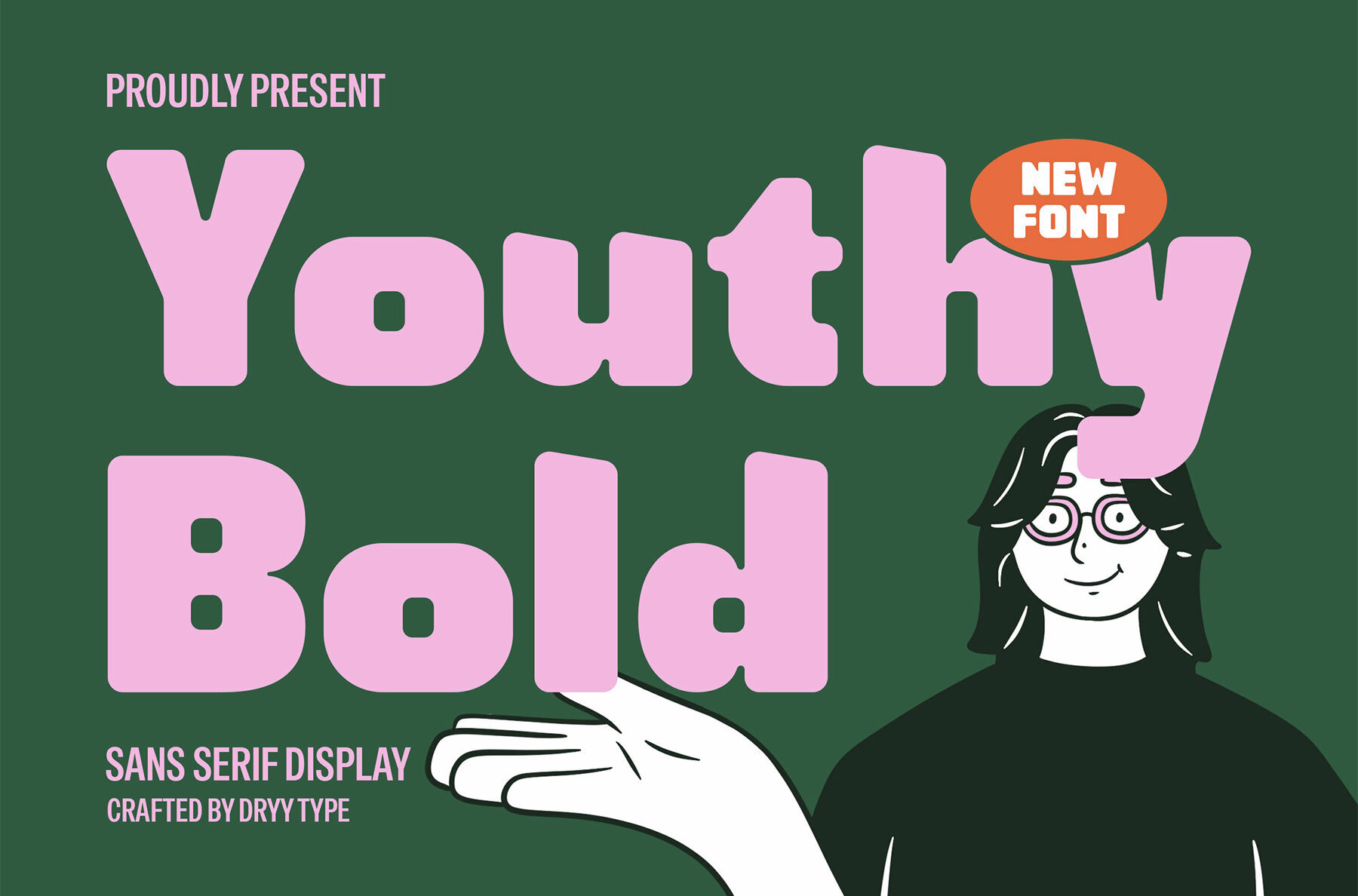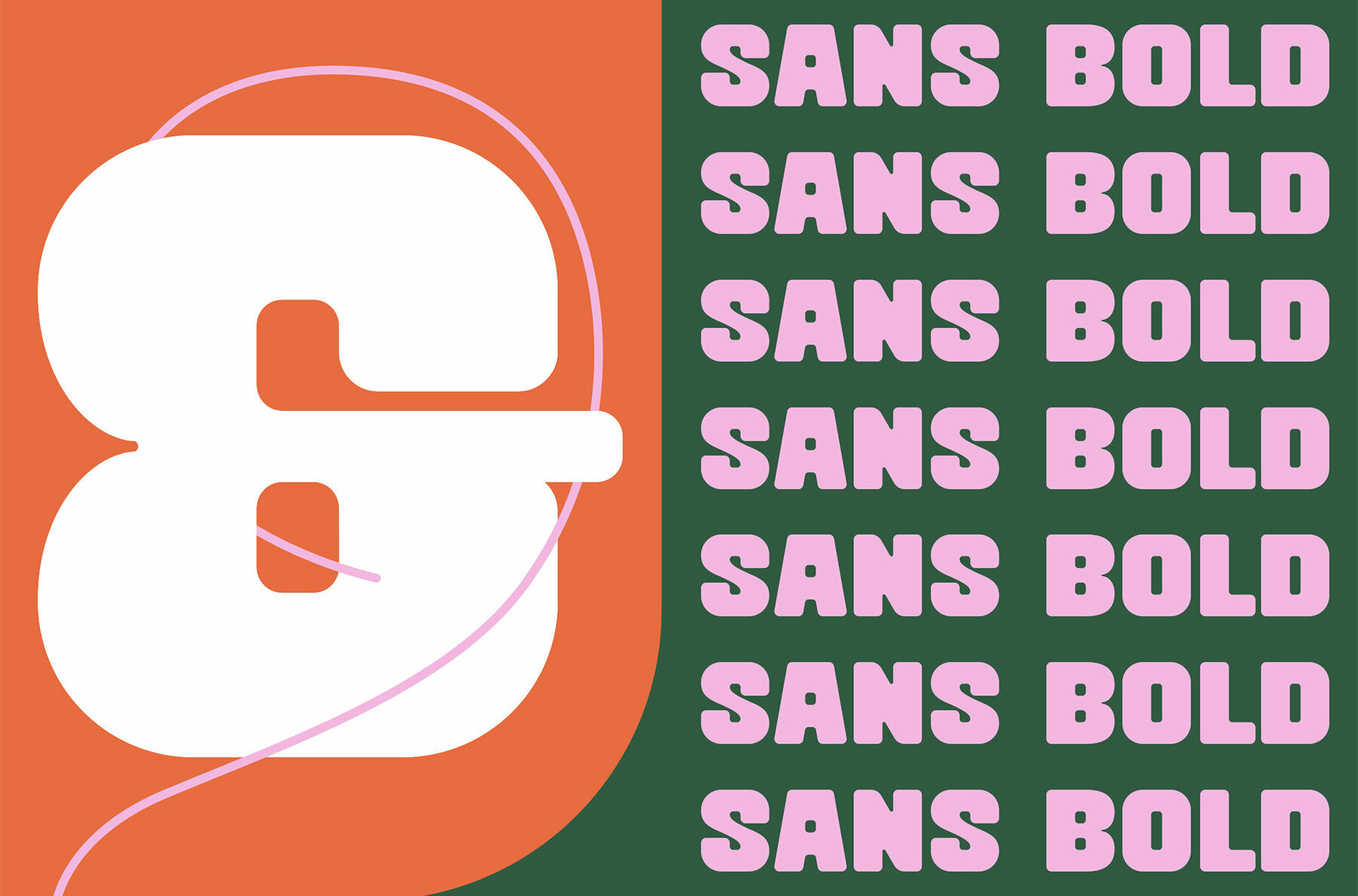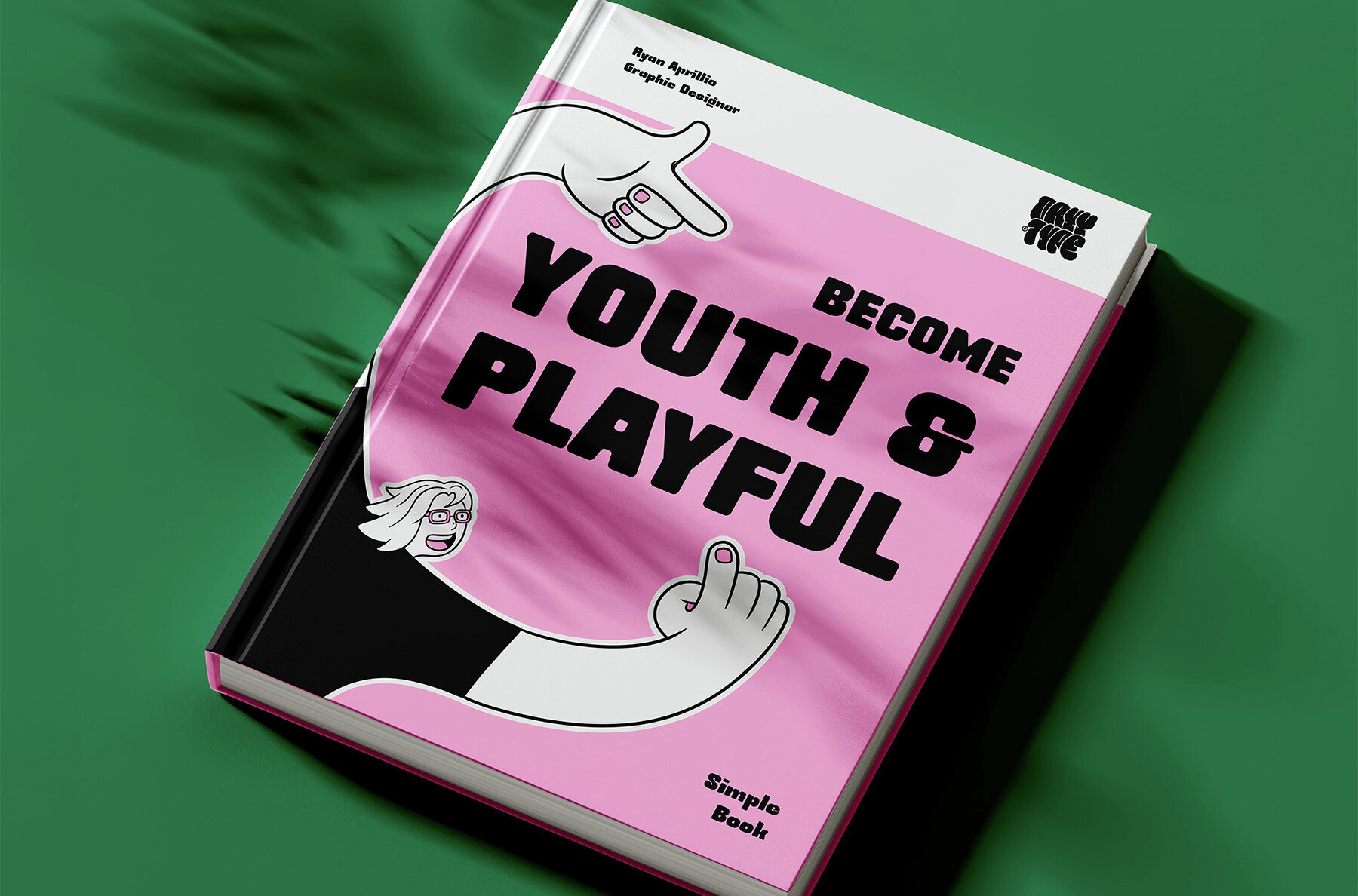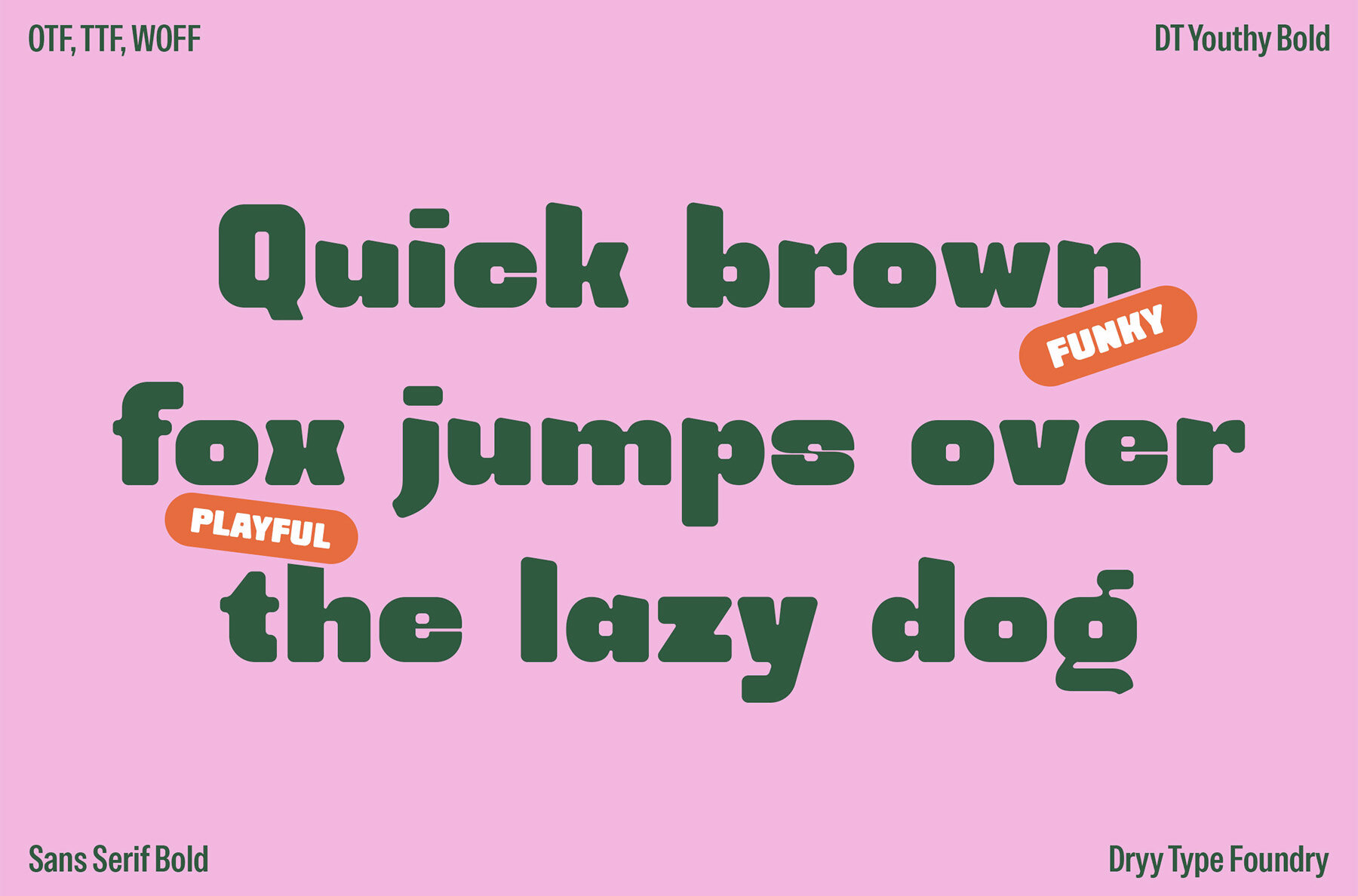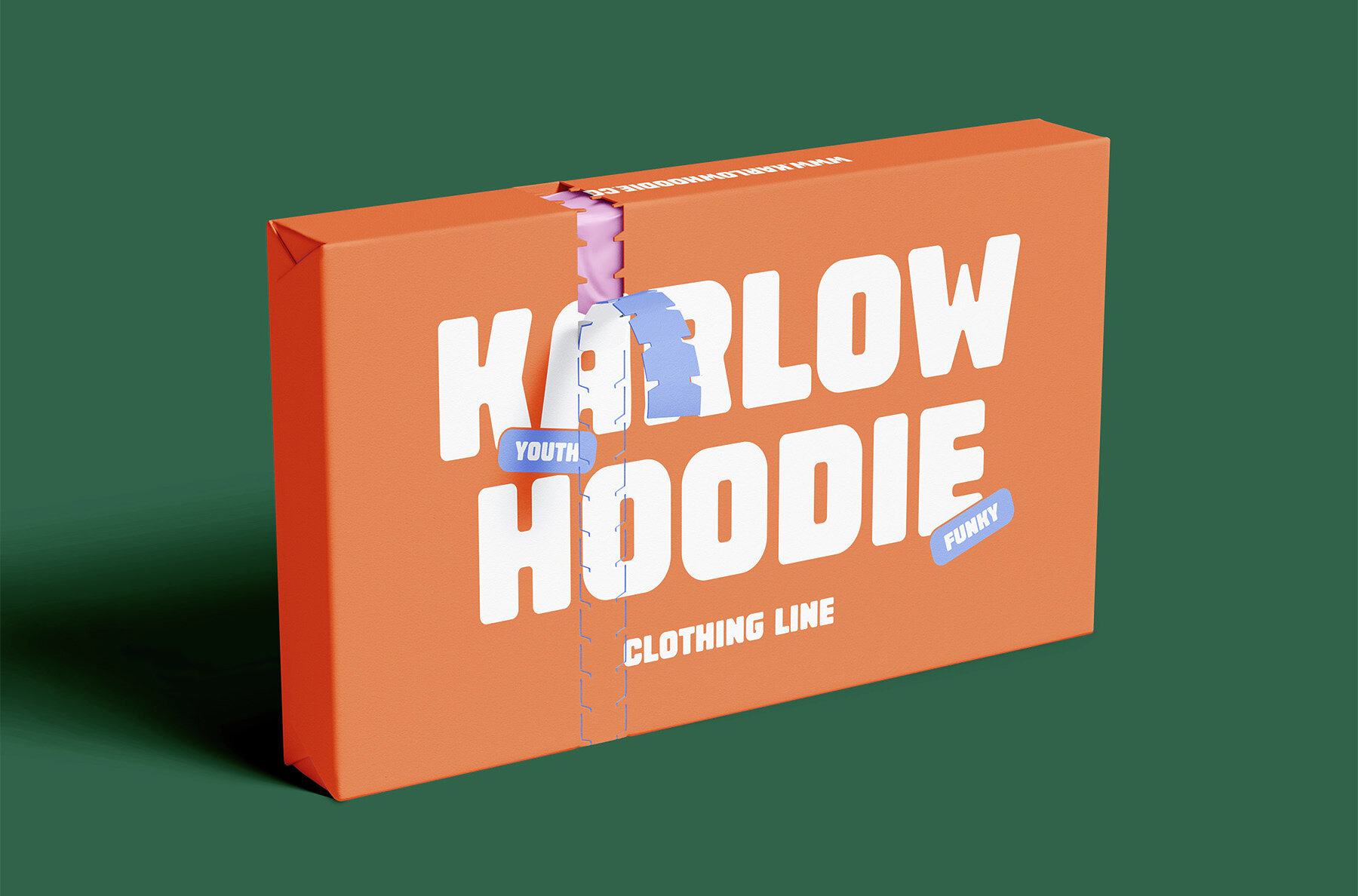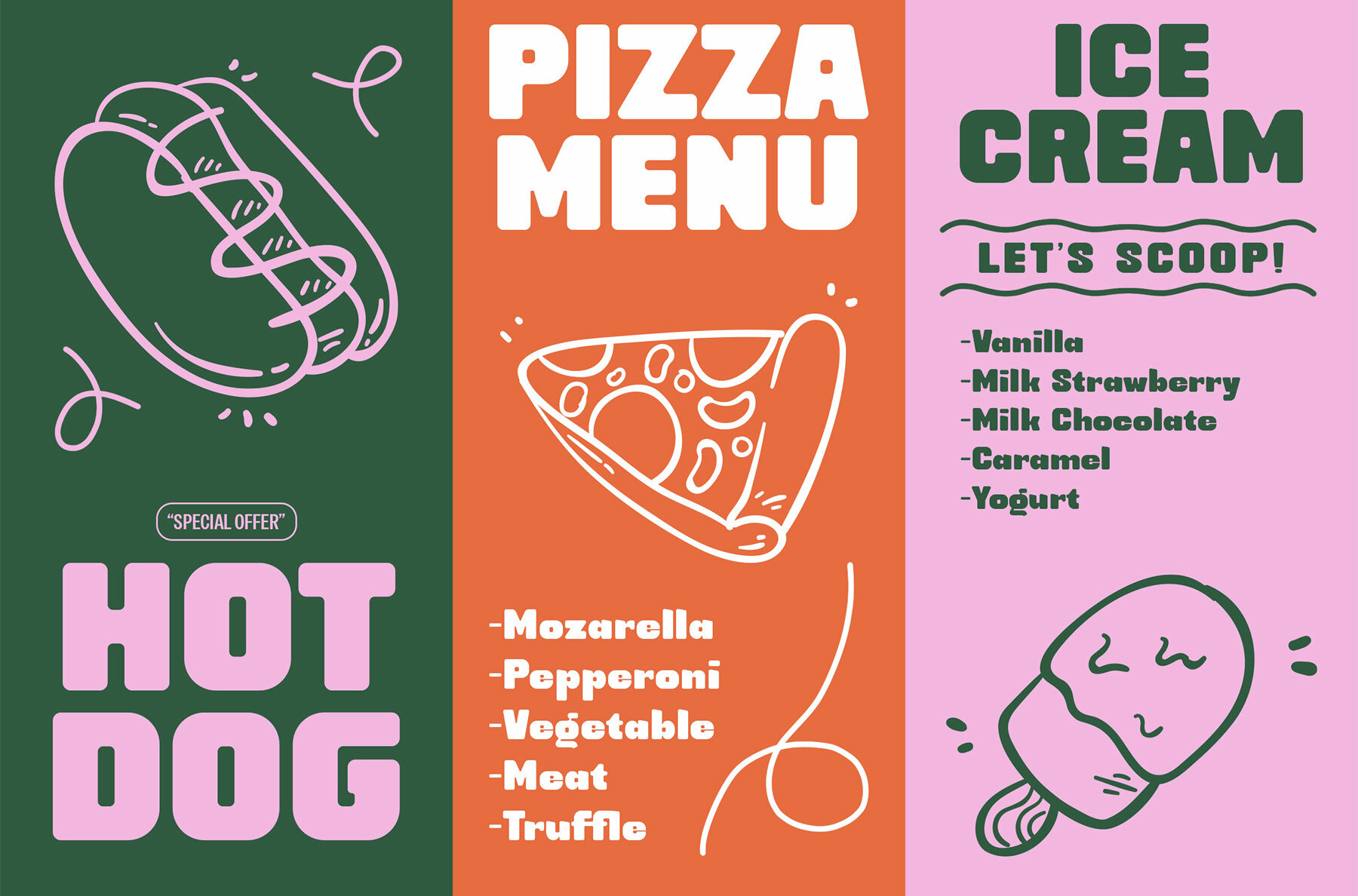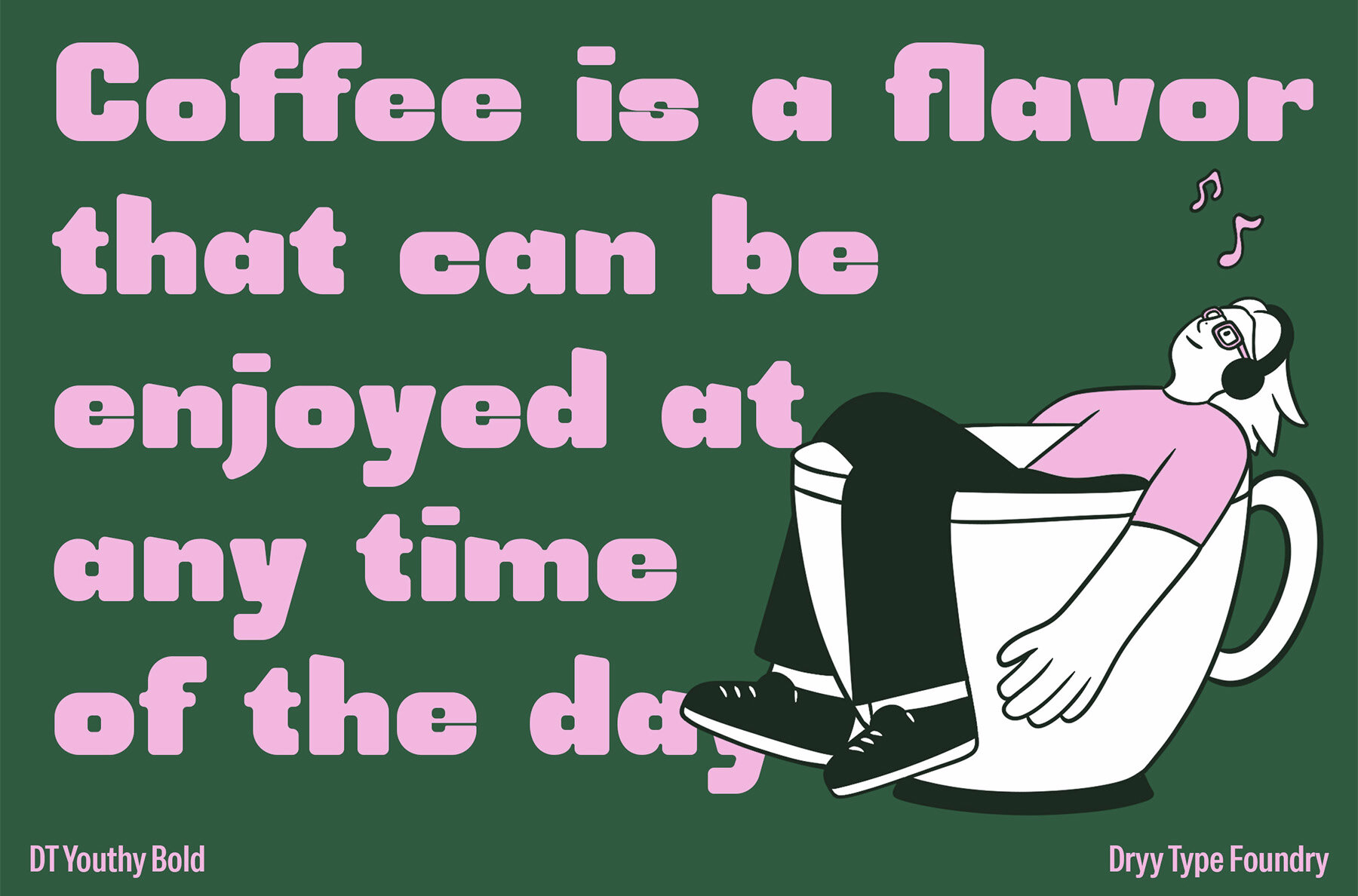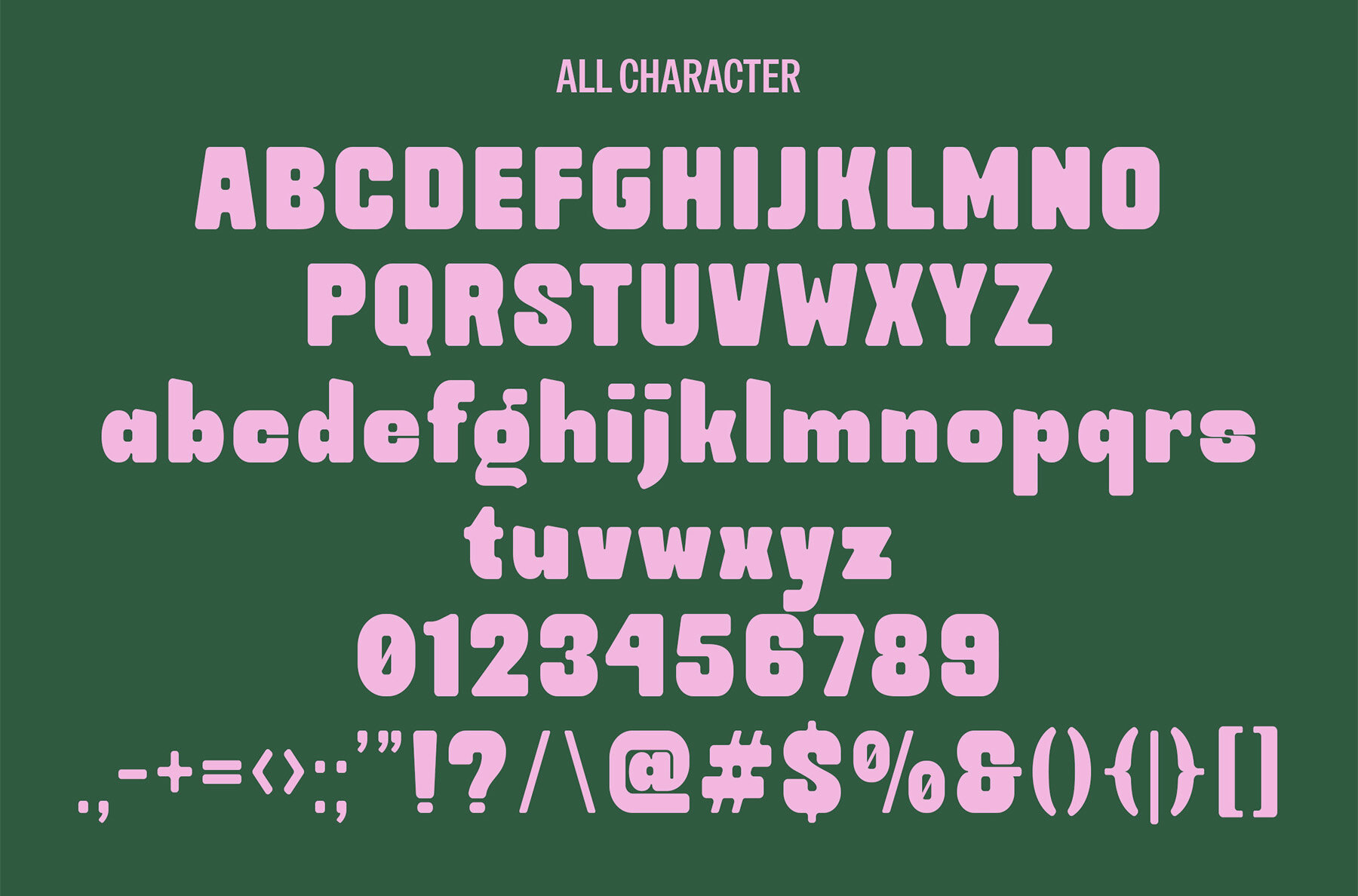
DT Youthy Bold Font
DT Youthy Bold
Inspired by the spirit of youth, DT Youthy Bold infuses every character with playfulness and energy. This font's versatile design seamlessly adapts to various projects, making it an ideal choice for any creative endeavor.DT Youthy Bold: A Playful and Dynamic Typeface